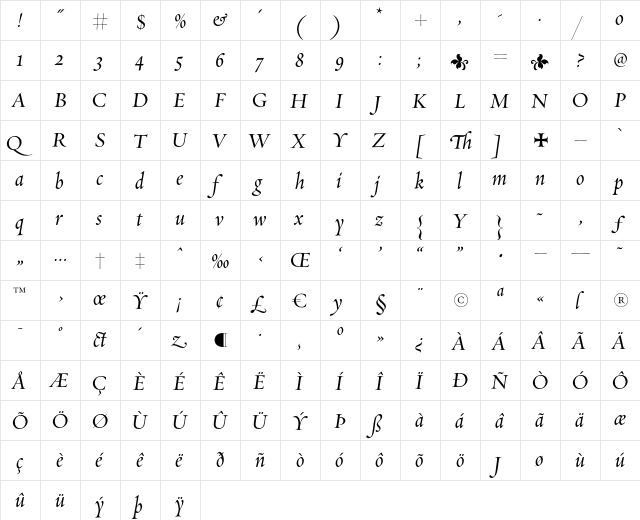
Requiem Display-HTF-Italic
Design Context for Requiem Typeface
Requiem is built around its visual character rather than neutral utility — its distinctive forms are designed to make an impression at display sizes. Its italic angle brings a sense of urgency and motion to the letterforms.
Font Pairing: Pair with a clean neutral sans-serif for body copy to let Requiem's character lead without overwhelming the composition.
Pro Tip: Use Requiem exclusively at display sizes — it was designed to be seen, not read at length. Let a neutral companion handle body copy.